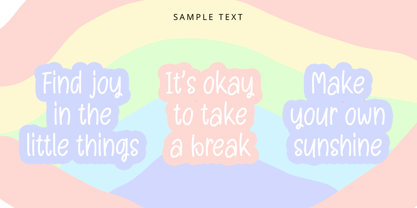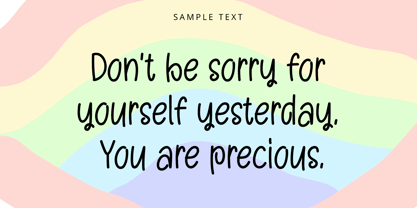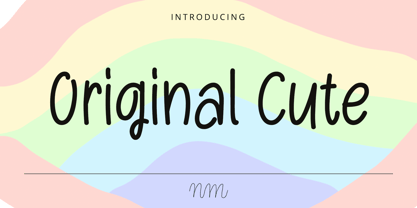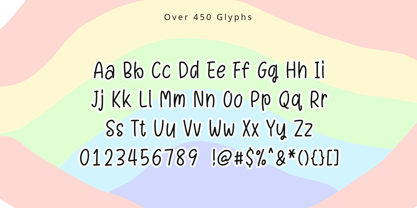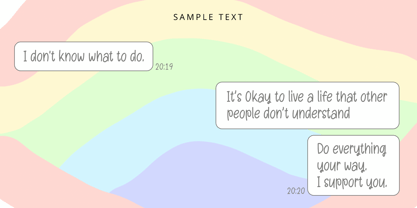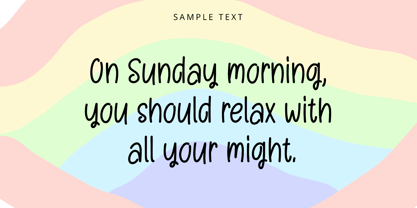
NmOriginalCute
von NM Fonts
Die Schriftfamilie NmOriginalCute wurde von Minji Noh entworfen und von NM Fonts veröffentlicht. NmOriginalCute enthält 1 Stile. Mehr über diese Familie
Original Cute is a playful handwritten font with a naturally charming personality. Its soft, rounded strokes and lively letterforms create a friendly and cheerful look that feels simple, youthful, and full of character.
Designed to bring a personal touch to everyday designs, Original Cute works beautifully for social media graphics, stickers, planners, greeting cards, invitations, packaging, branding, and lifestyle projects. Its casual and approachable style makes it easy to use whenever you want your design to feel warm, fun, and effortlessly cute.
With over 450 glyphs, Original Cute offers extensive character support for a wide range of creative projects. From digital content to printed materials, it adds a playful handwritten touch to every word.
Designer: Minji Noh
Foundry: NM Fonts